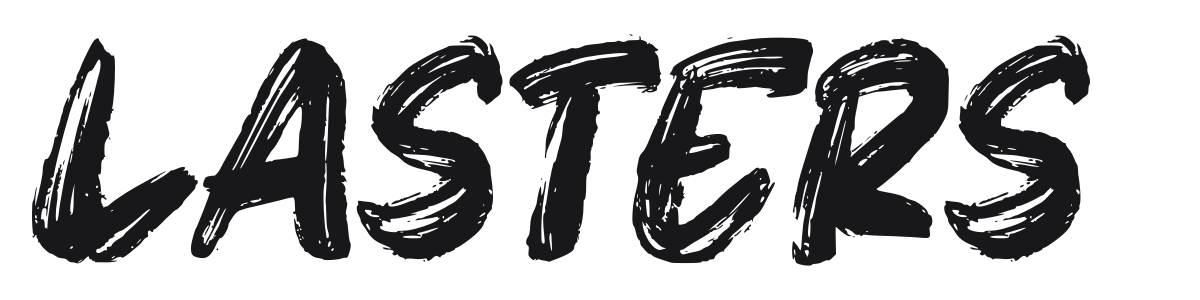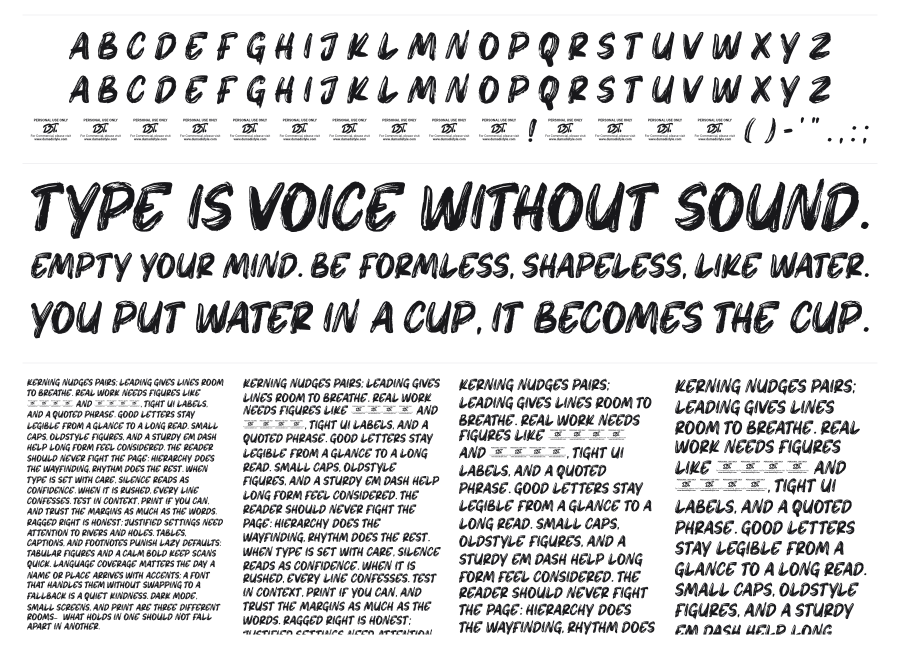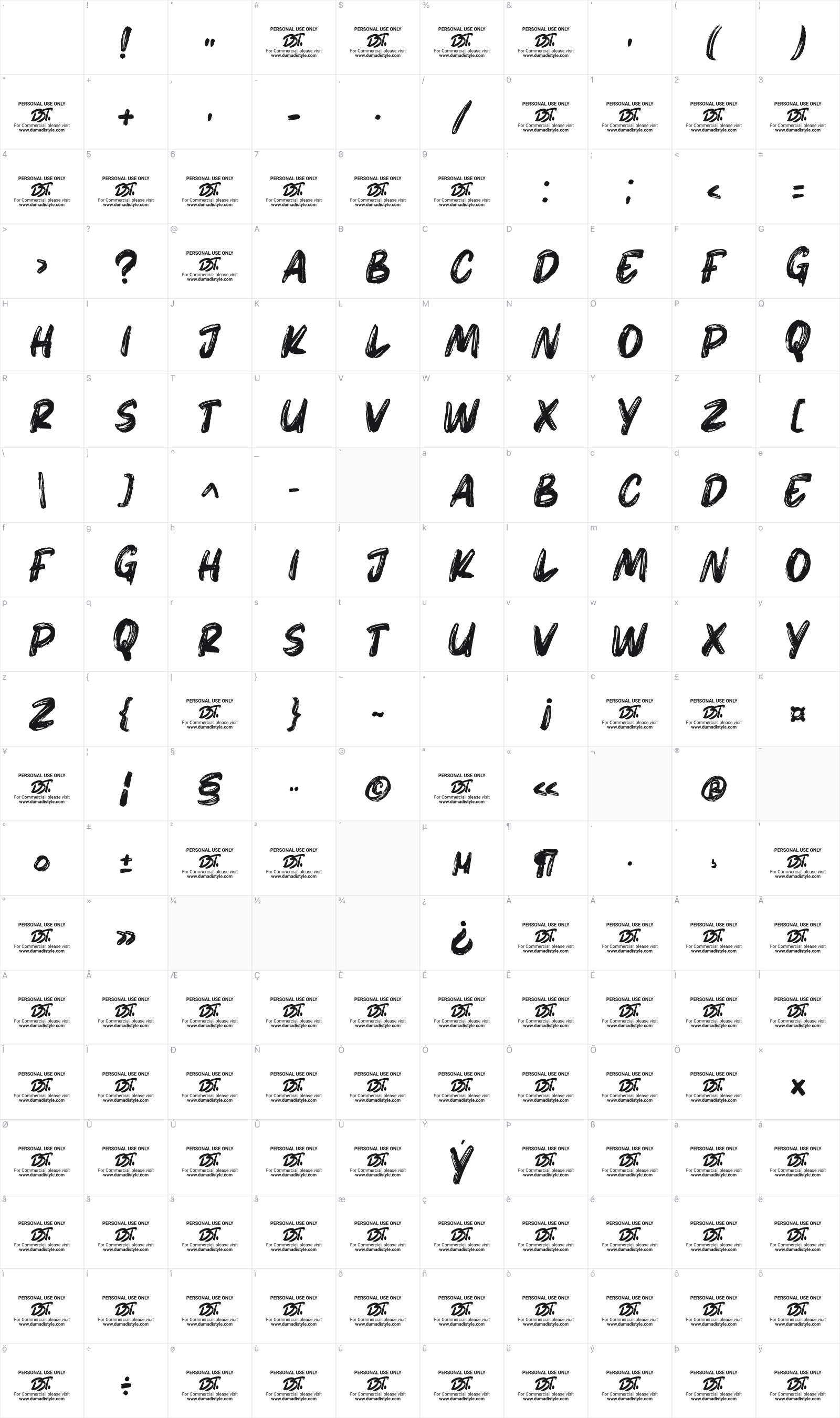
Lasters
Lasters is a heavy brush script with a raw, hand-painted texture that makes every letter look freshly stroked onto the page. The rough bristle edges and bold weight give it a gritty street-art energy without feeling sloppy. Strong at large sizes for posters, apparel, and brand identities that want an authentic handmade edge.